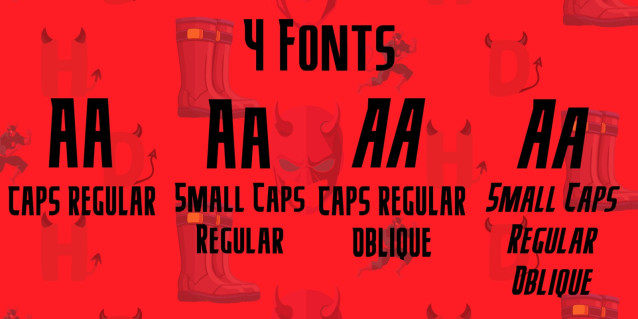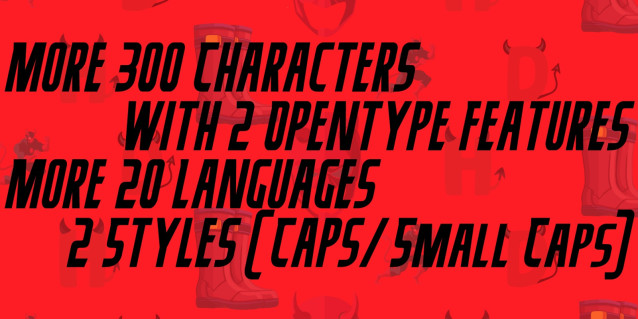
HERODEVIL CAPS FONT
Herodevil Caps Font is unapologetically loud—a visual scream designed to capture attention immediately. It embodies a raw, masculine energy that balances modern industrial aesthetics with rebellious street style. The heavy, monolithic weight of the uppercase lettering forms a commanding text block that demands to be noticed. Sharp, angular terminations slice through whitespace with precision, conveying urgency and impact. This typeface is not suited for subtle narratives; it serves as the typographic equivalent of a heavy bass line or a door slamming shut—ideal for high-octane headlines, esports branding, or album art that requires a striking presence.